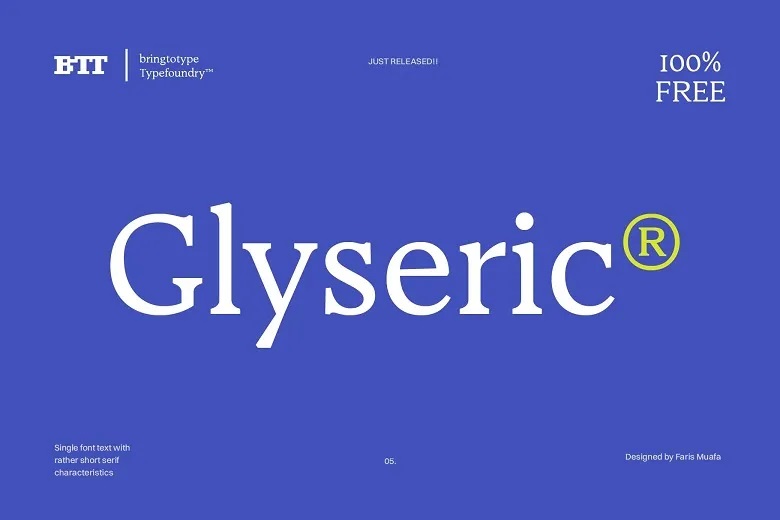
Glyseric Font
Glyseric can be stated as being one of the most advanced serif font that combines the elements of classical and new tendencies of font designing. Because of short serifs, and rather balanced letter shapes, it is a very versatile and elegant font suitable for many design applications.
Glyseric Serif Font